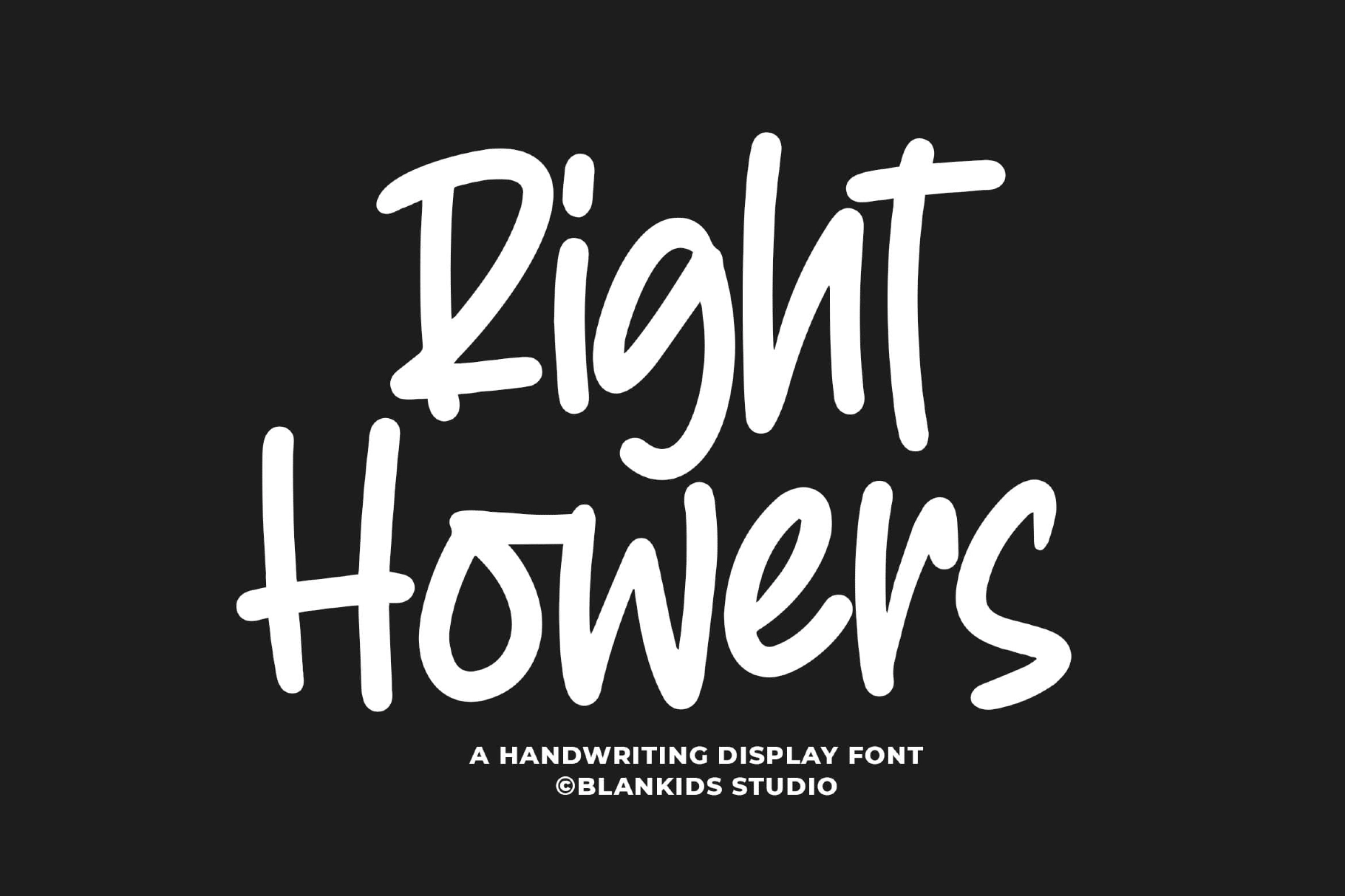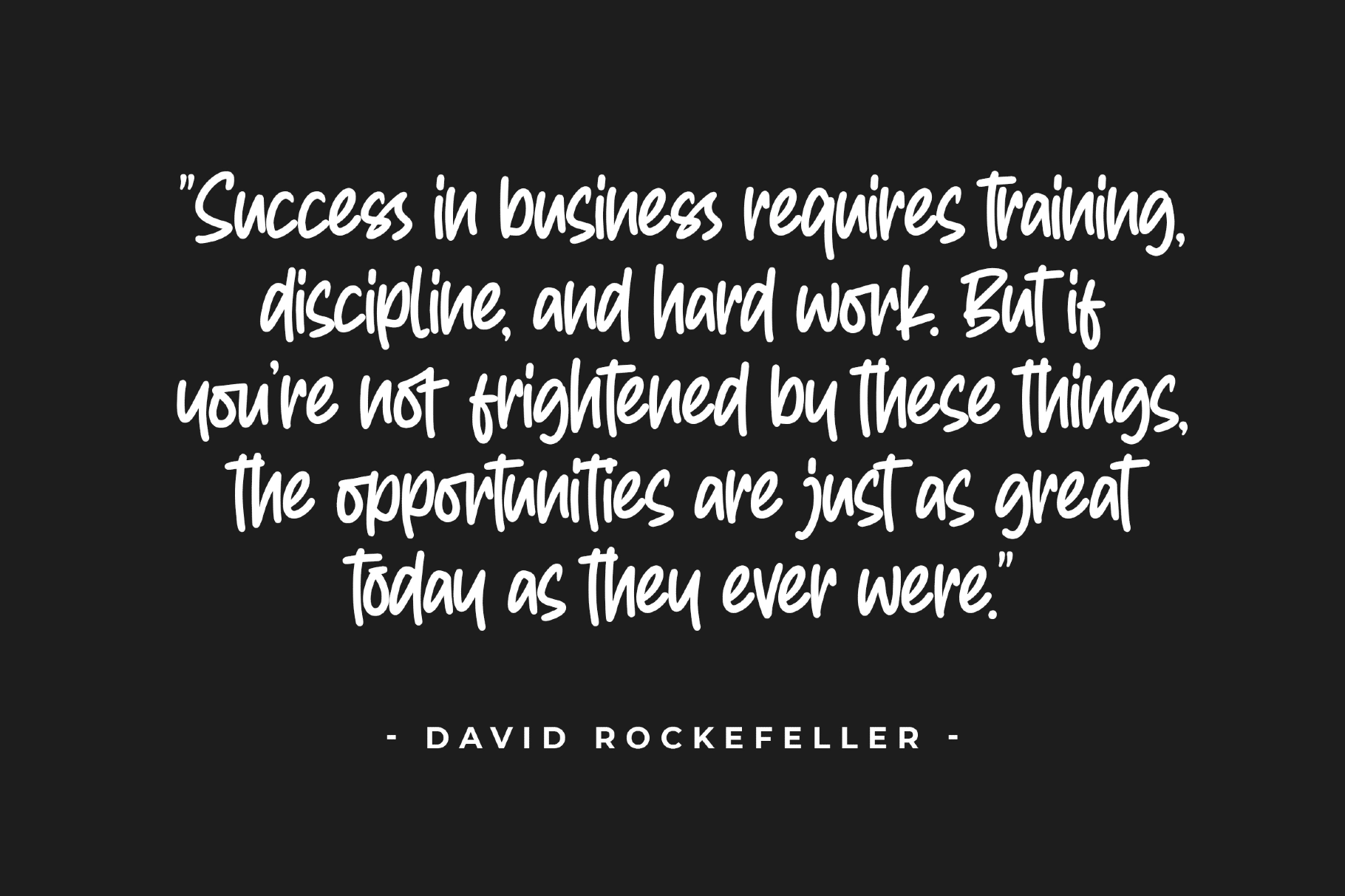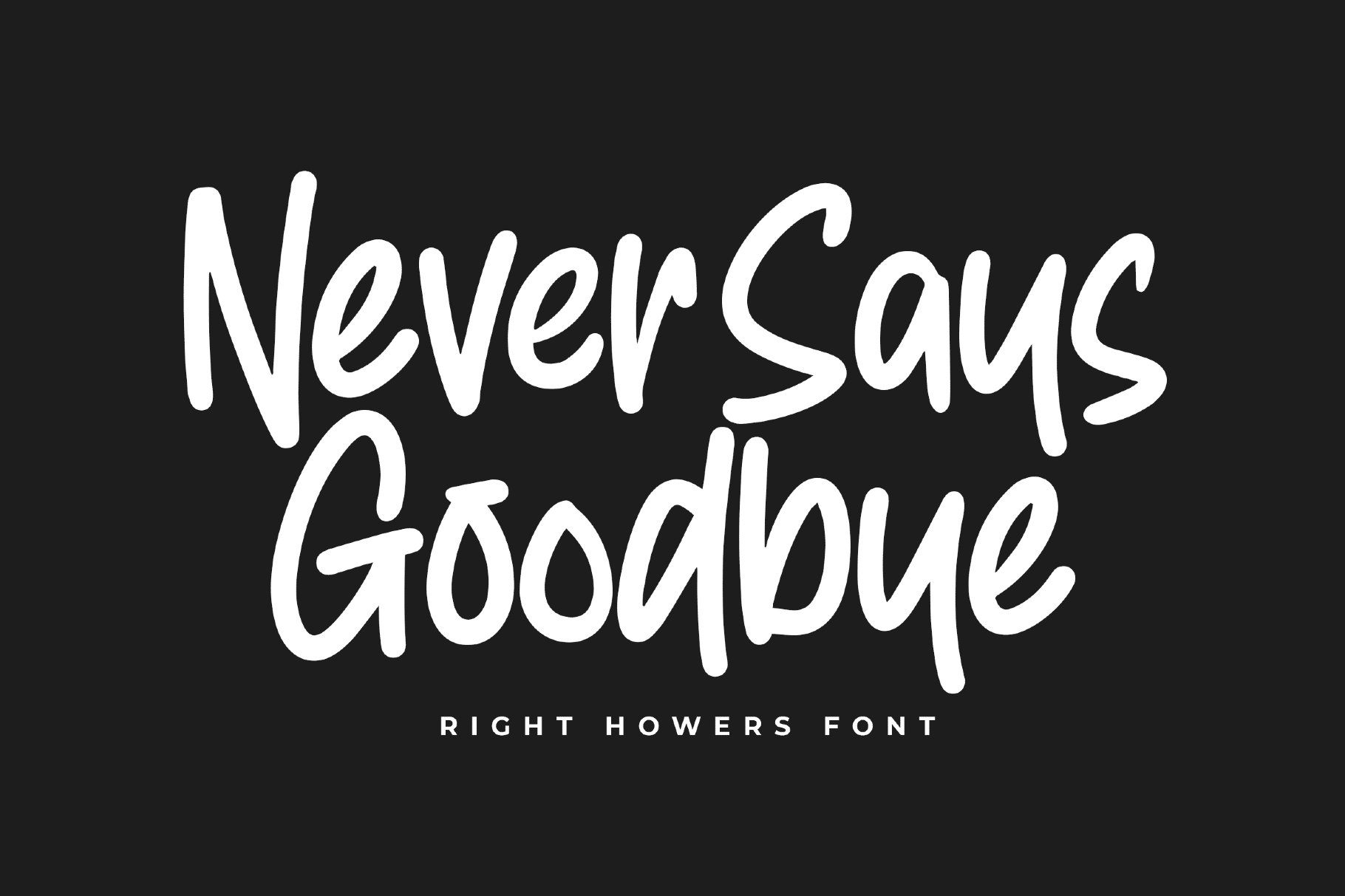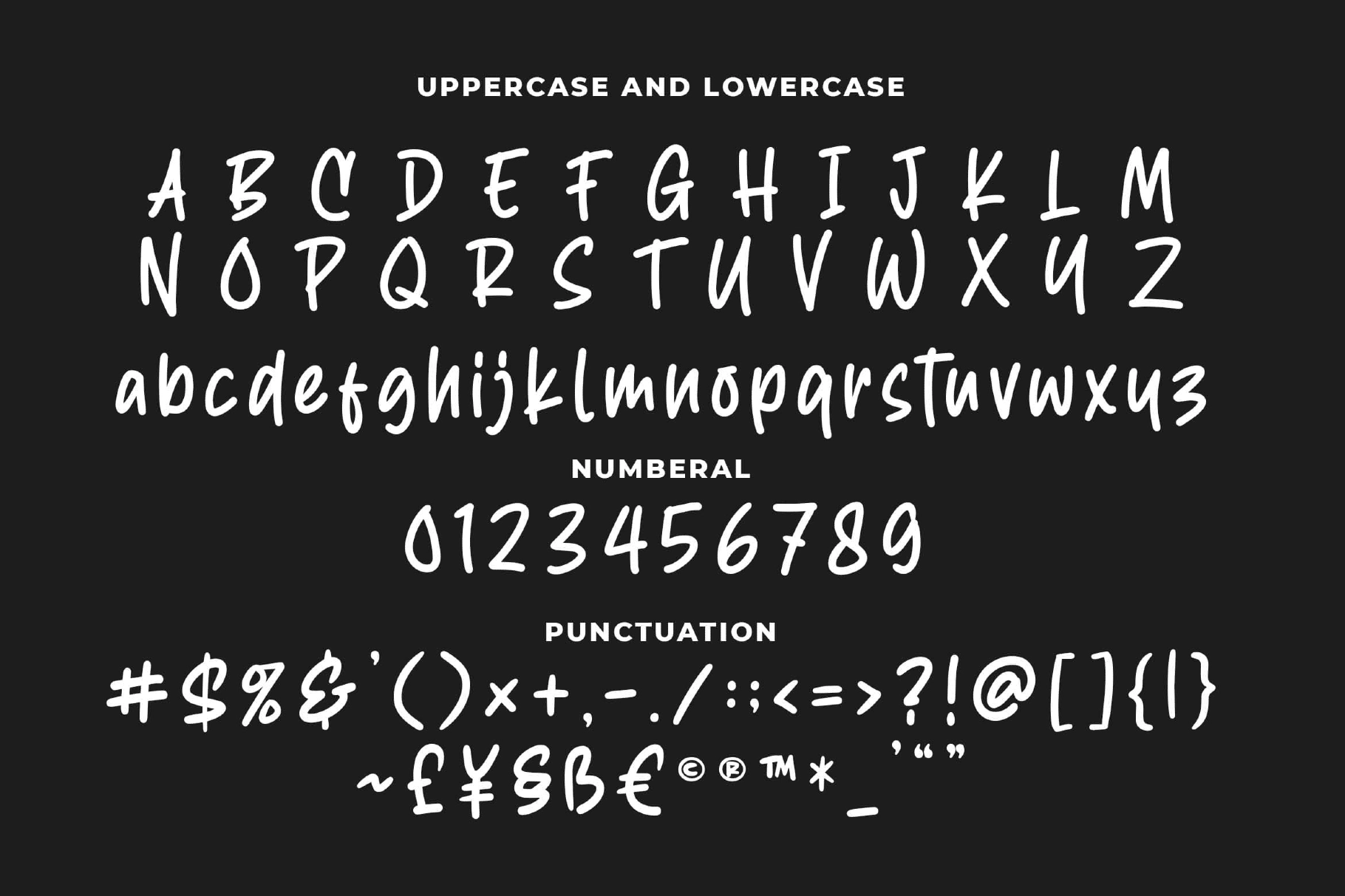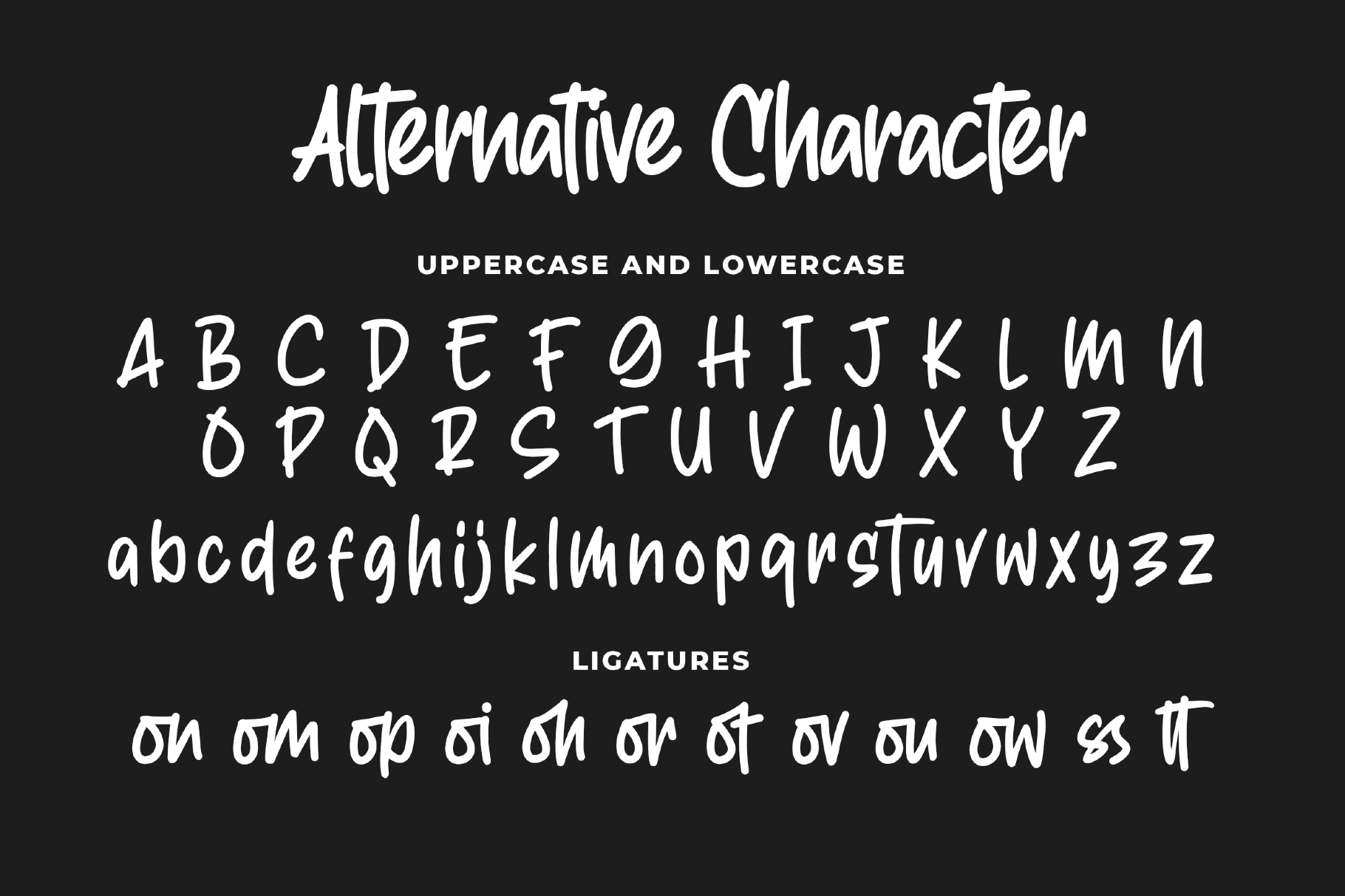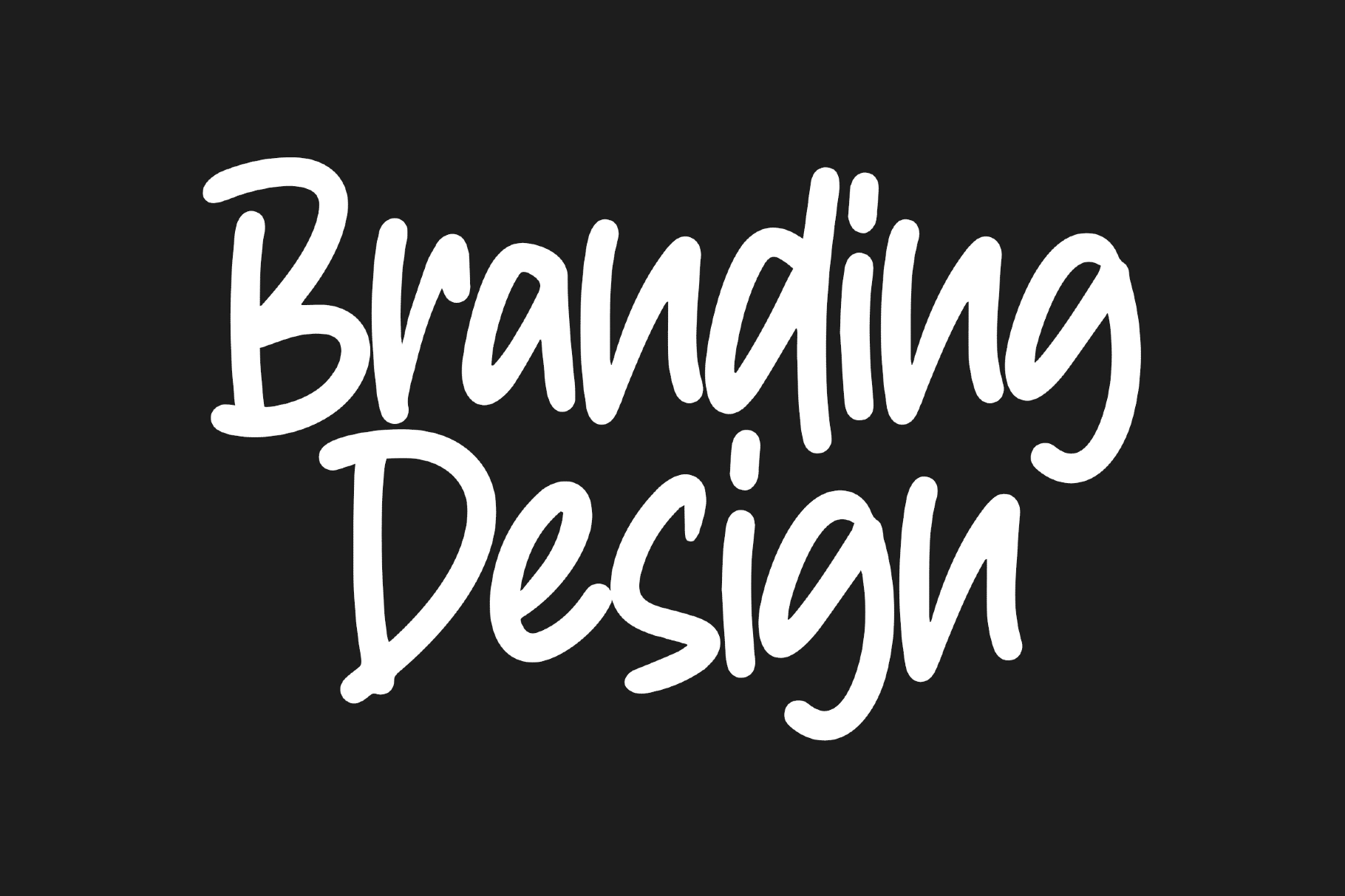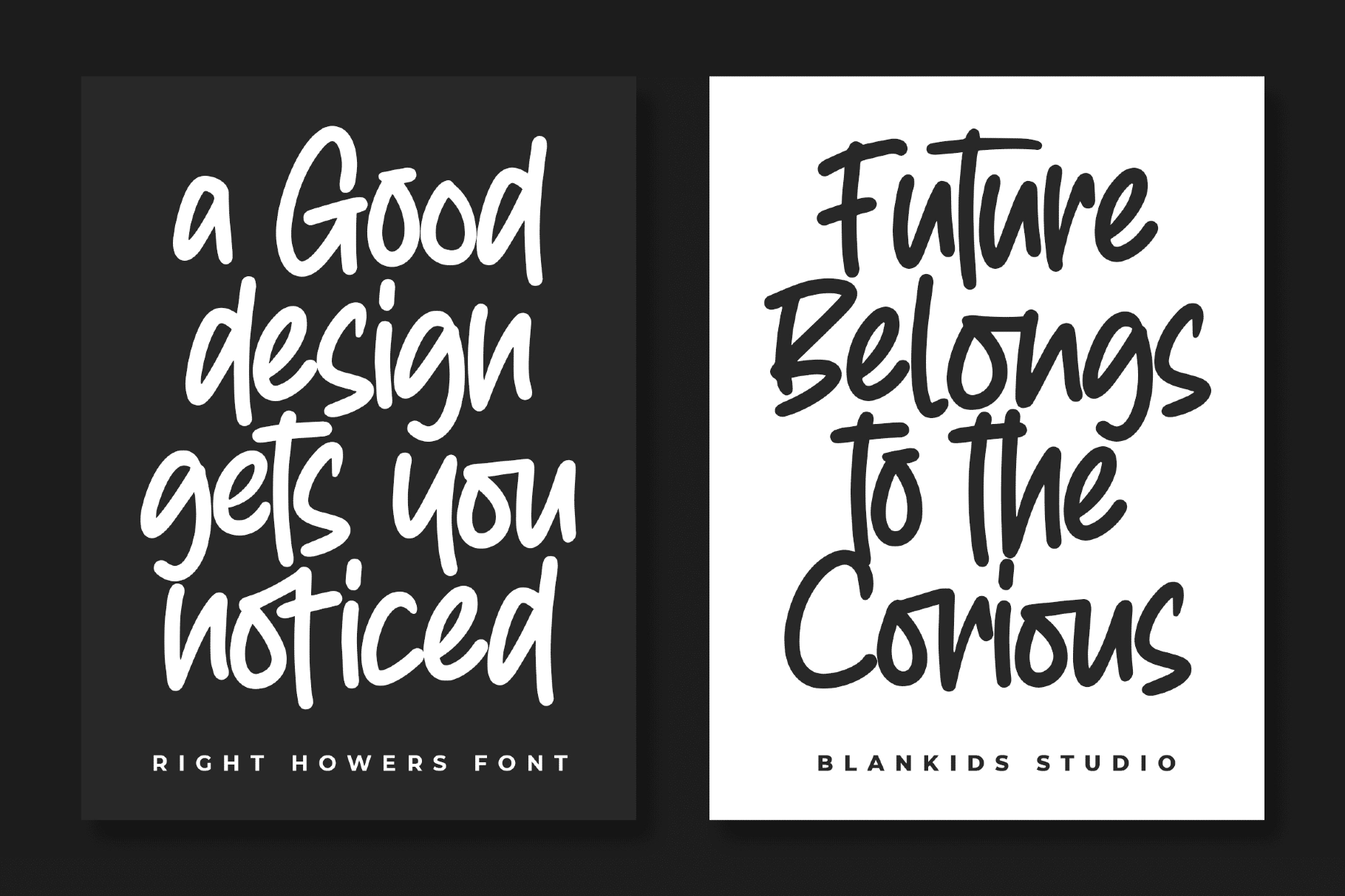
Right Howers - Handwriting Display Font
Right Howers
Right Howers - Handwriting Display Font is a natural handwriting display font designed to bring warmth and personality into your creative projects. With its smooth strokes and casual handwritten flow, this typeface feels authentic and expressive — perfect for designs that need a human touch.
Ideal for logotypes, posters, branding, packaging, social media graphics, and promotional materials, Right Howers delivers a clean yet playful handwritten style. Each character is carefully crafted to maintain readability while preserving the organic charm of real handwriting.
- Handwriting display style
- Natural handwritten flow
- OpenType support